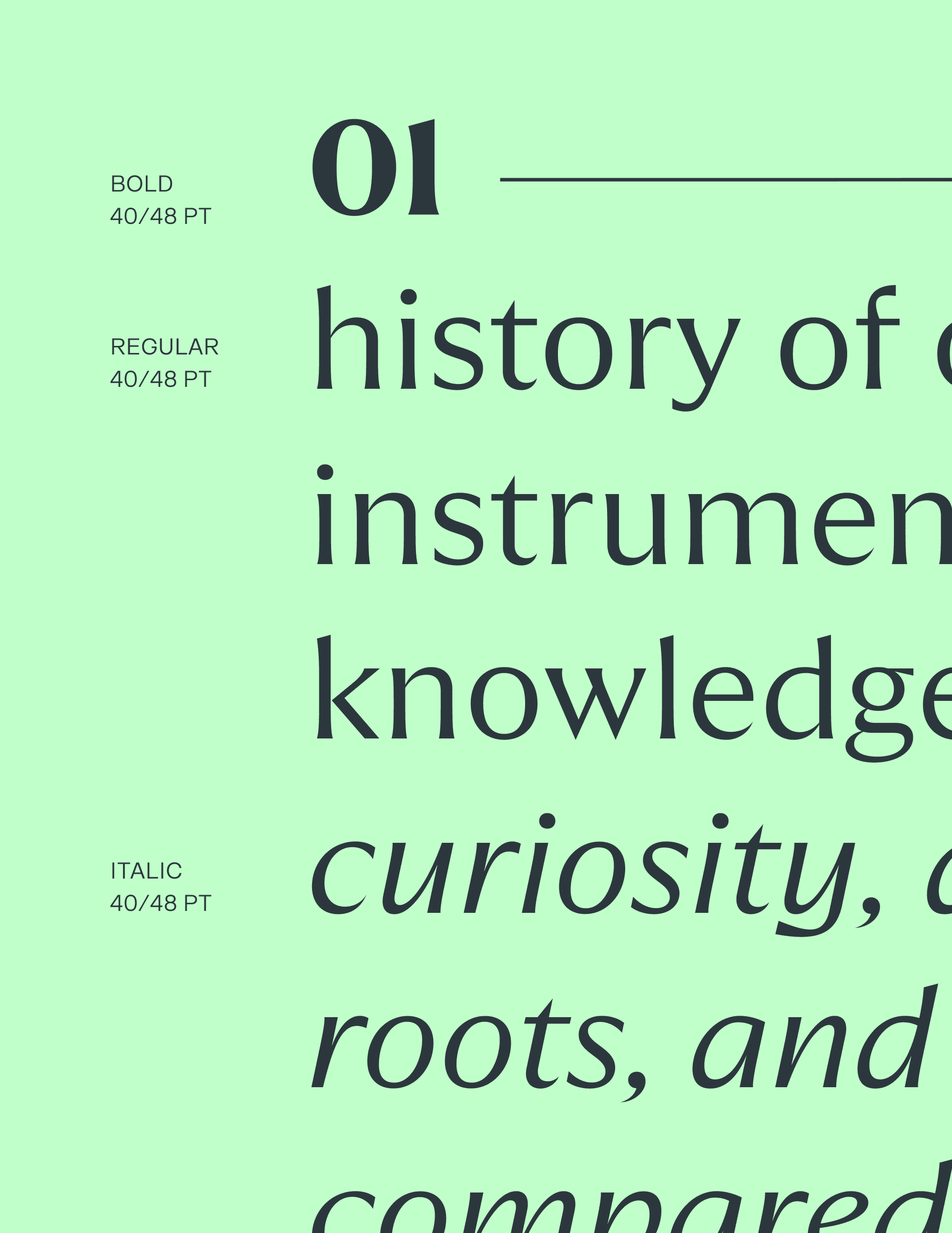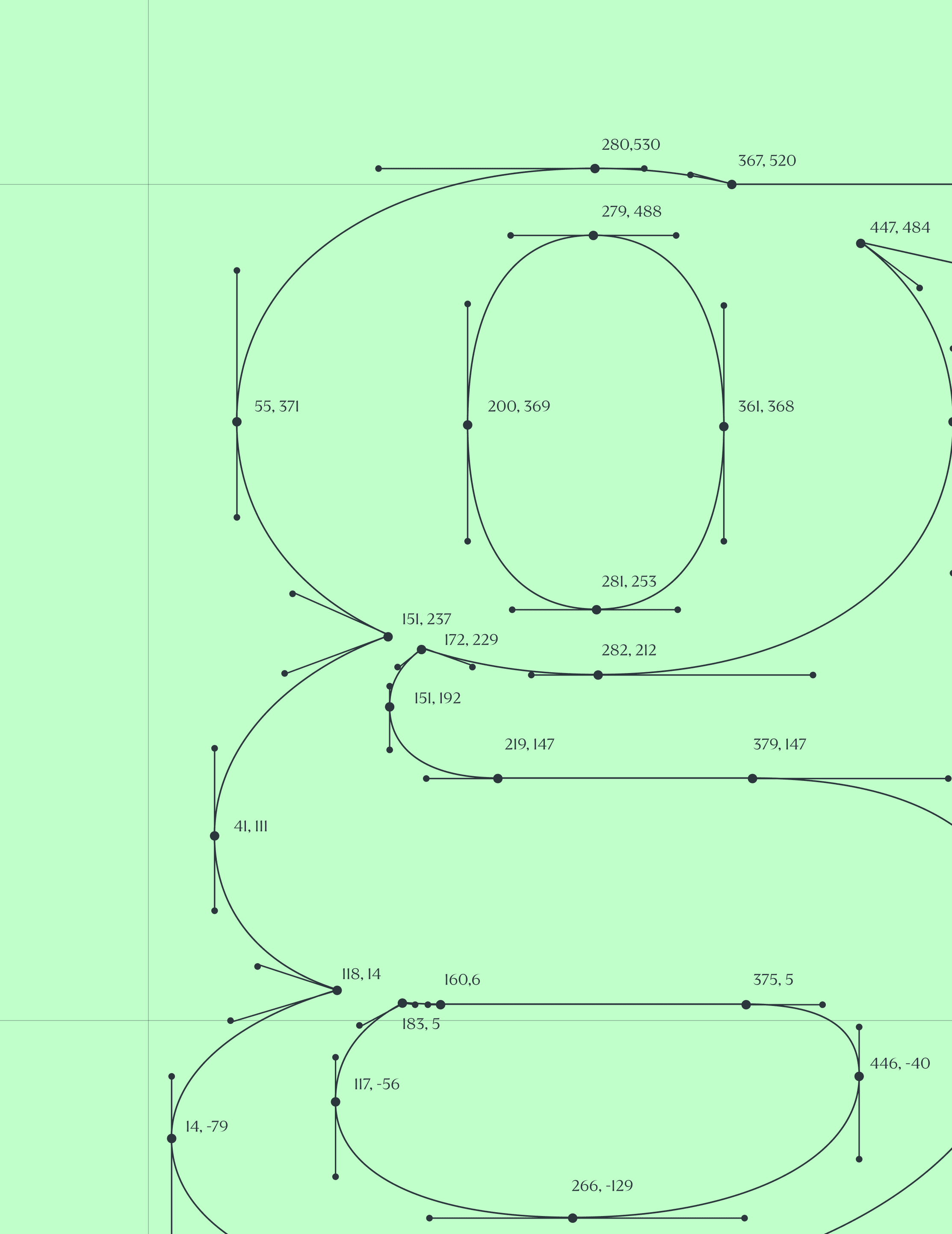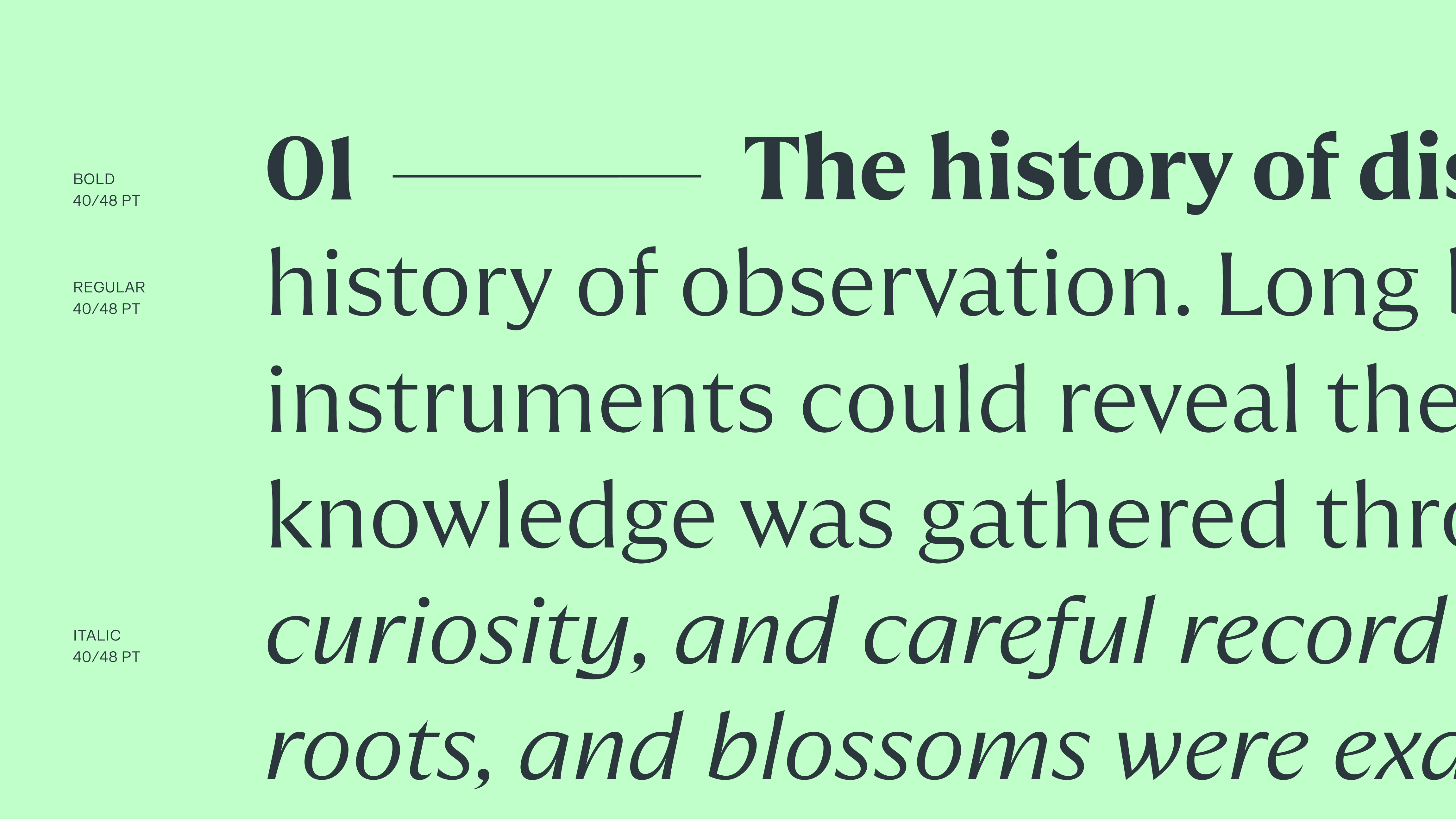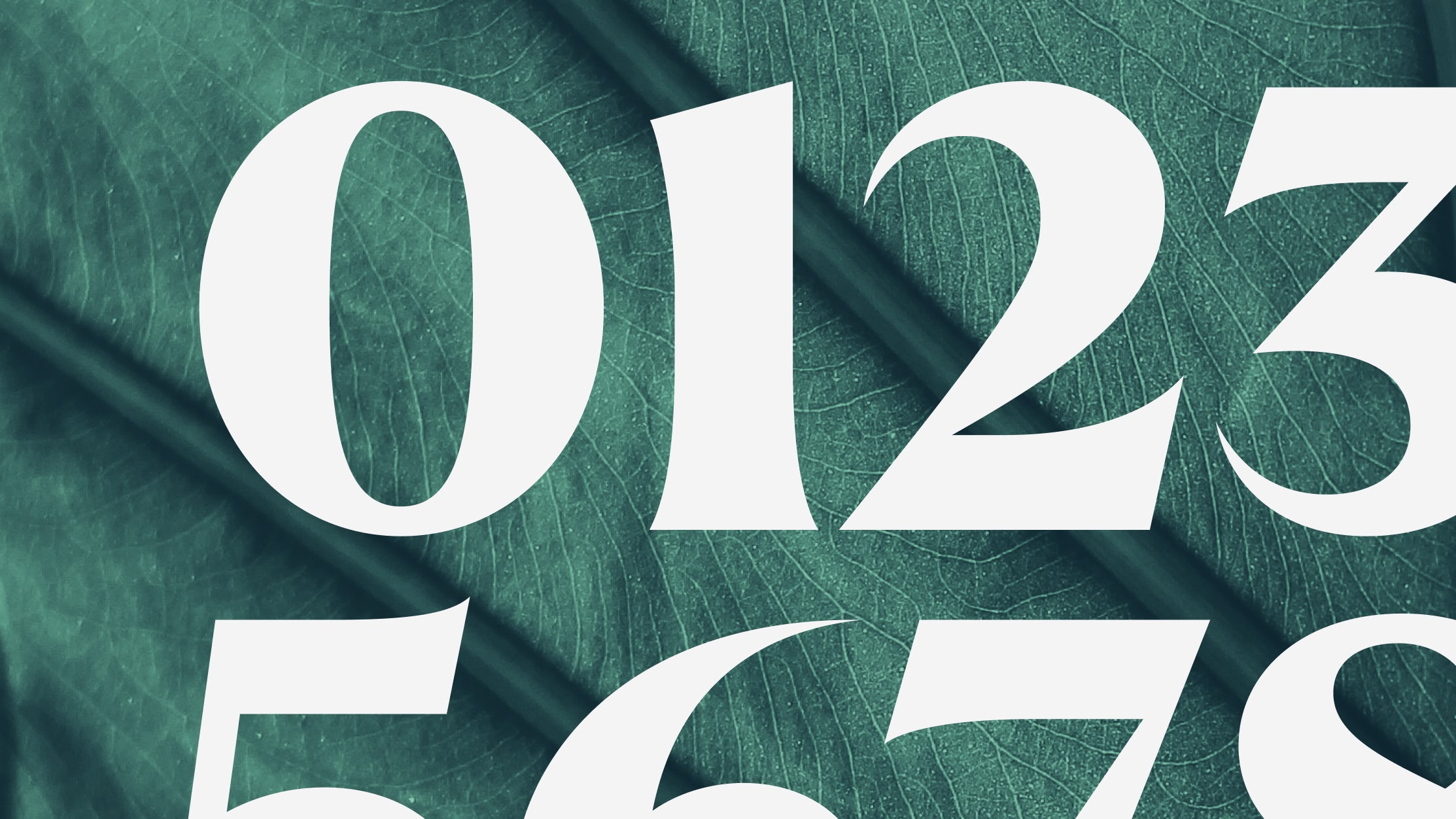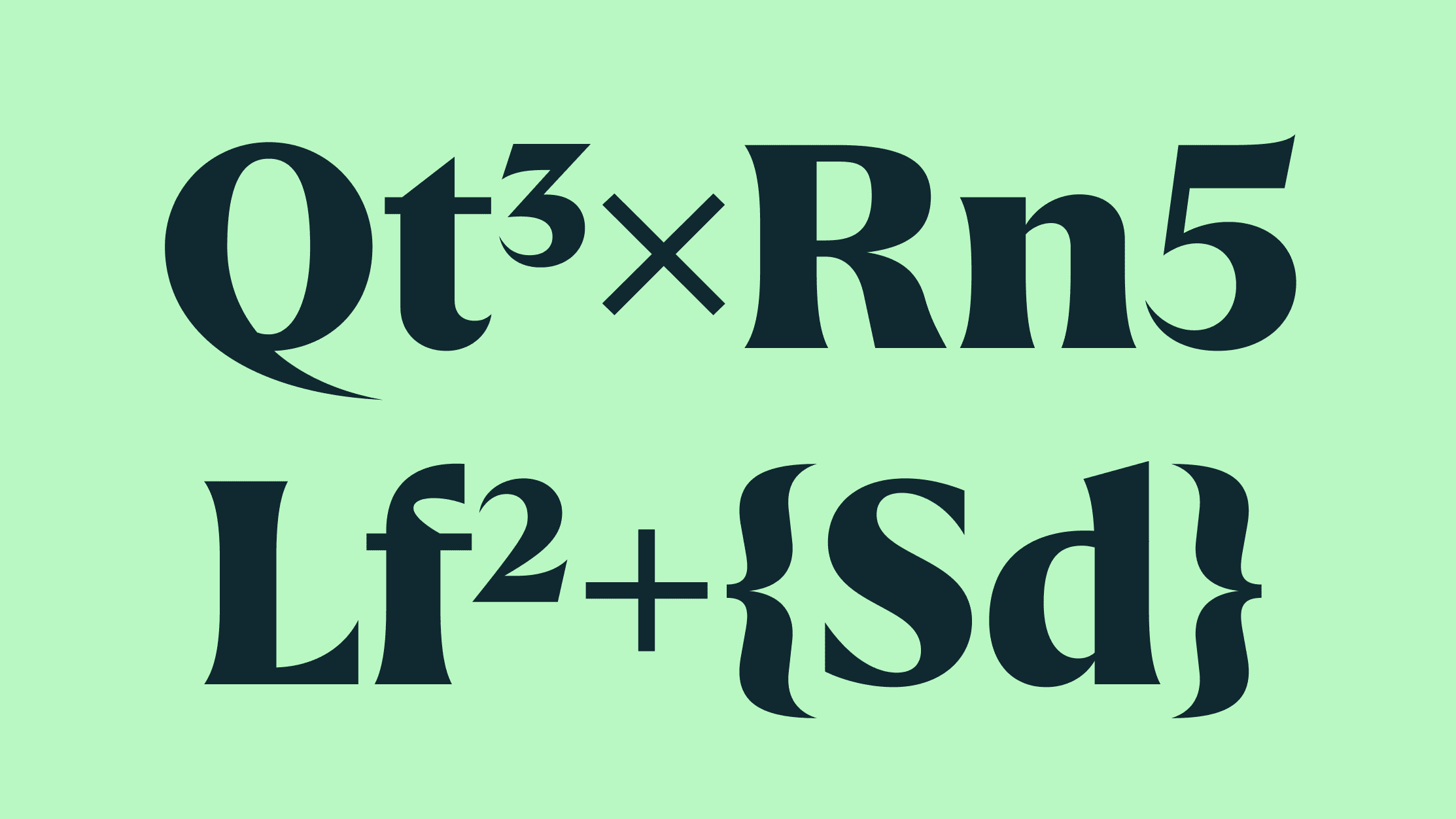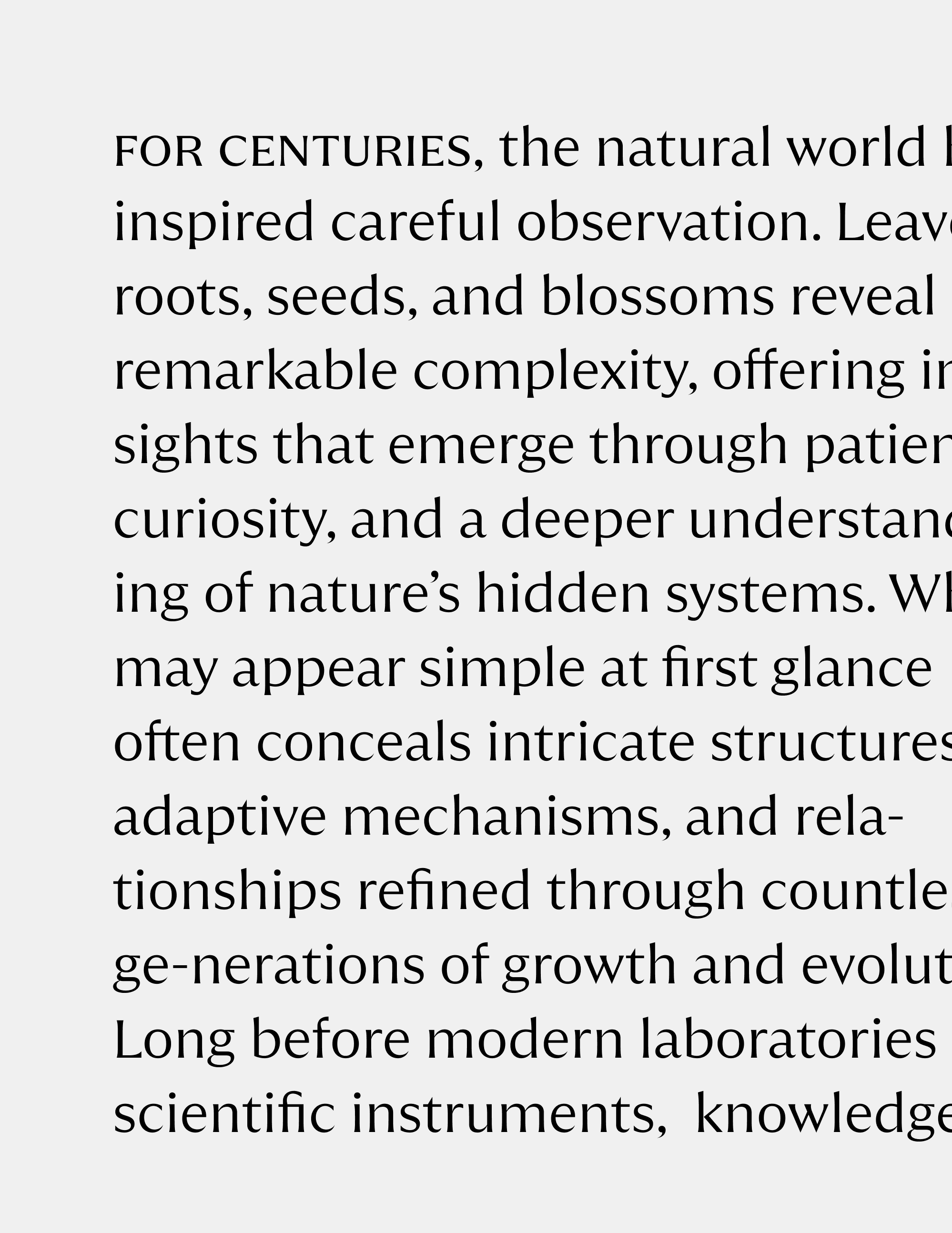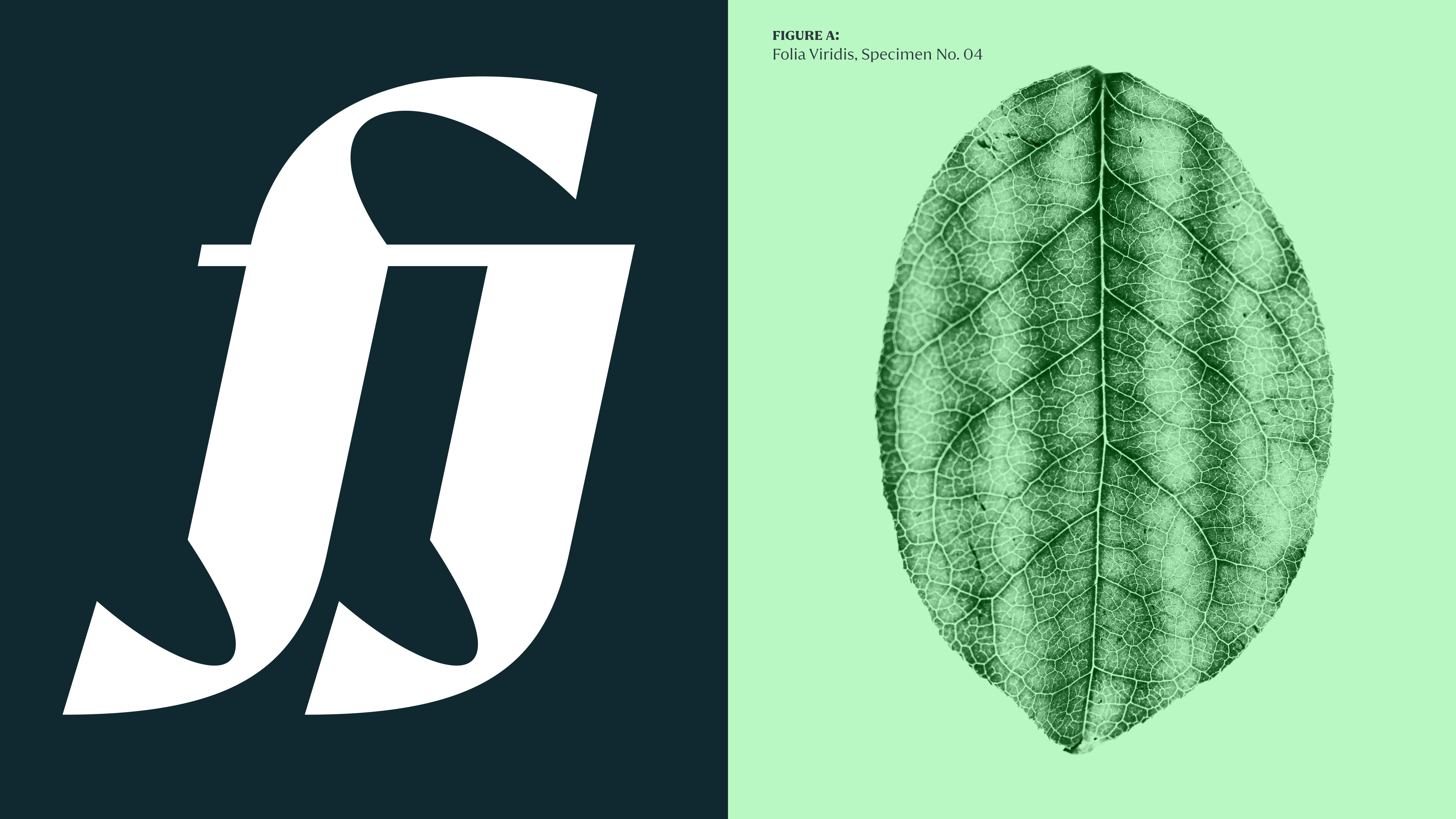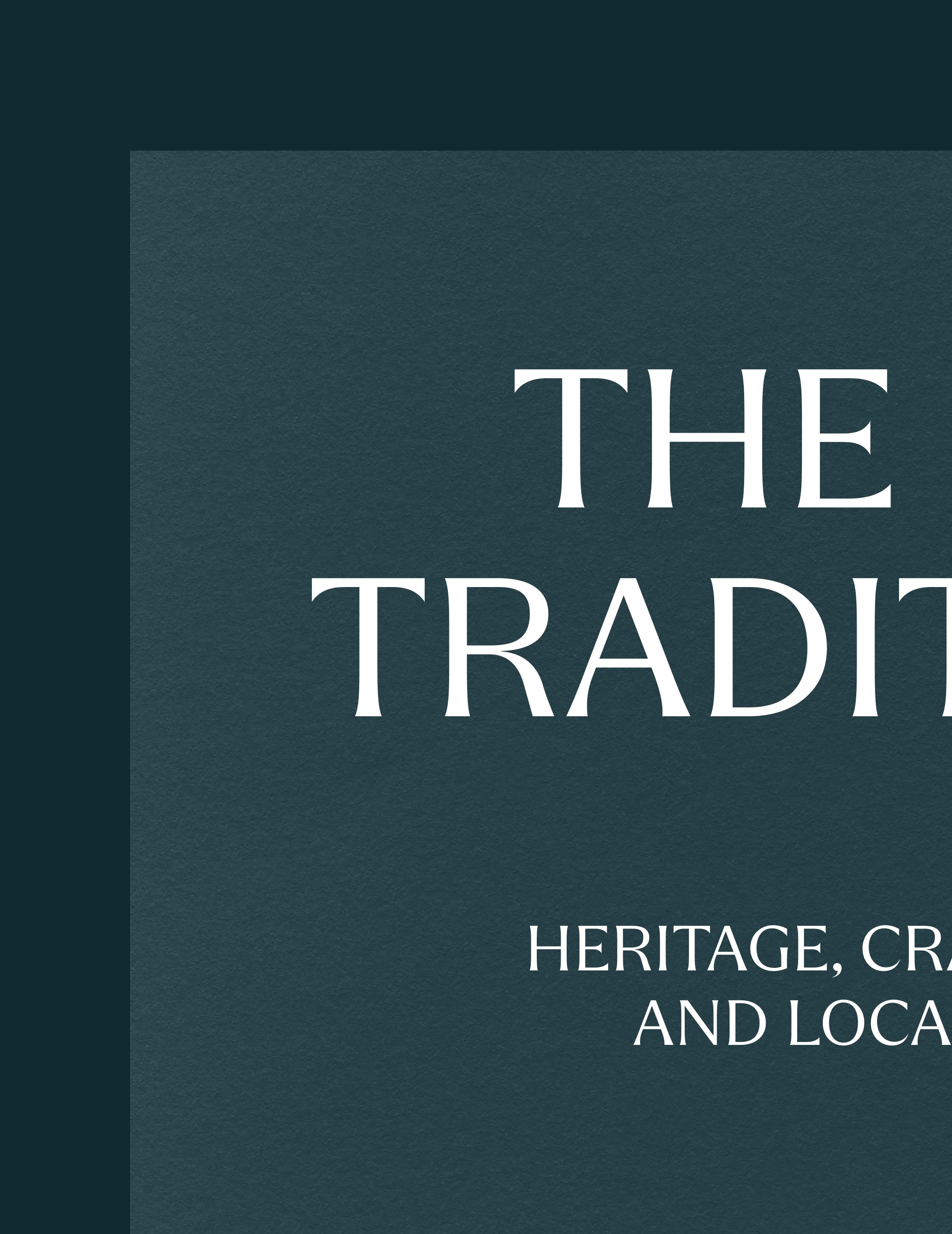
Quaria Text is a hybrid typeface designed for reading sizes and extended text. Combining the structural clarity of a sans-serif with details more commonly associated with serif traditions, it balances readability, refinement, and comfort across continuous text. Also available as Quaria Display.